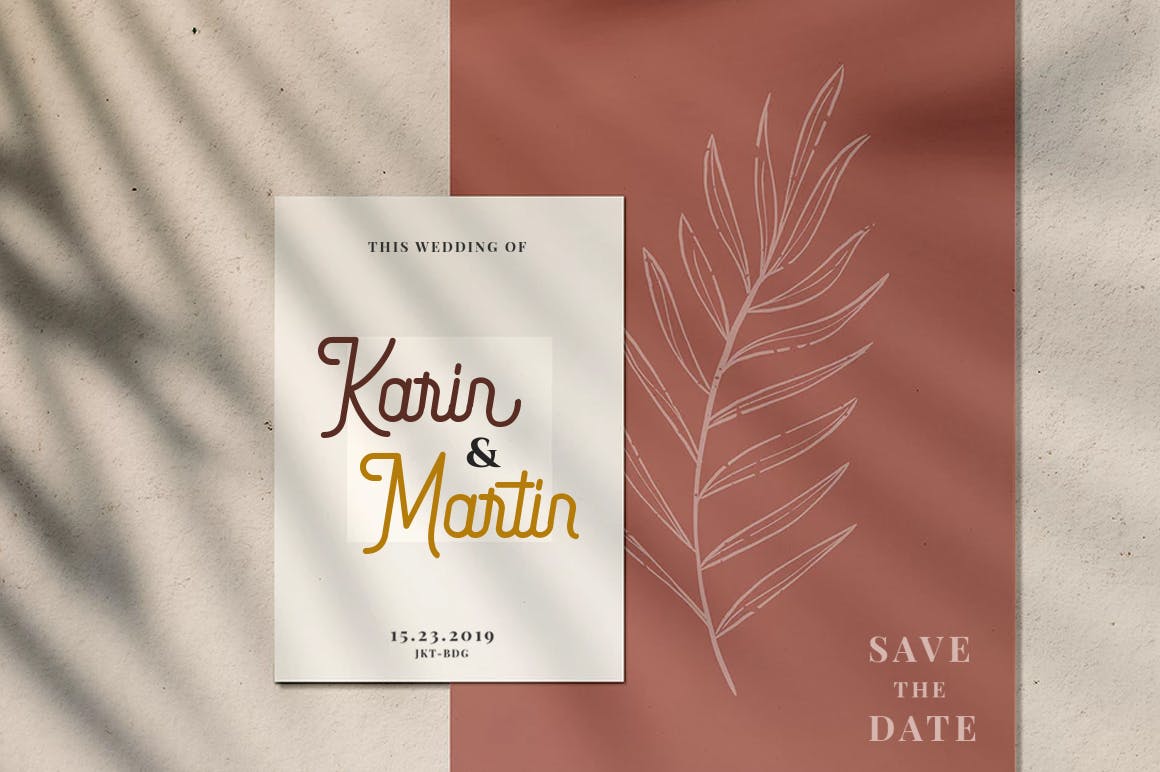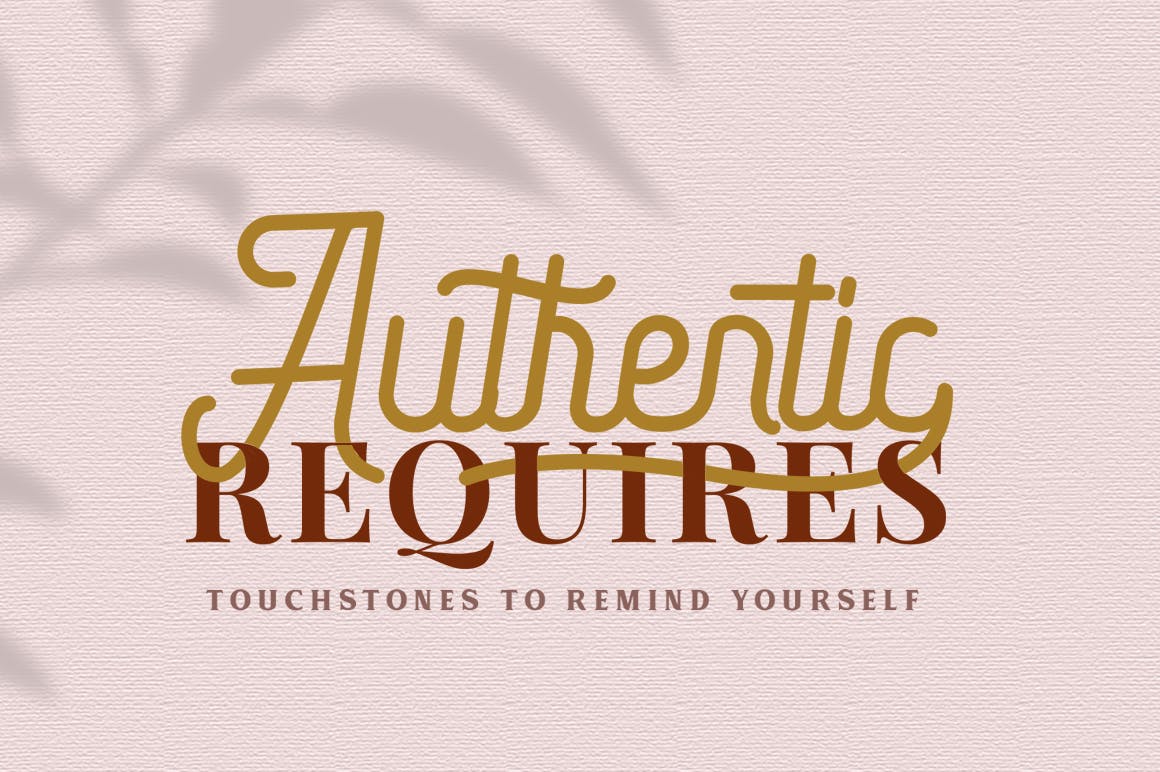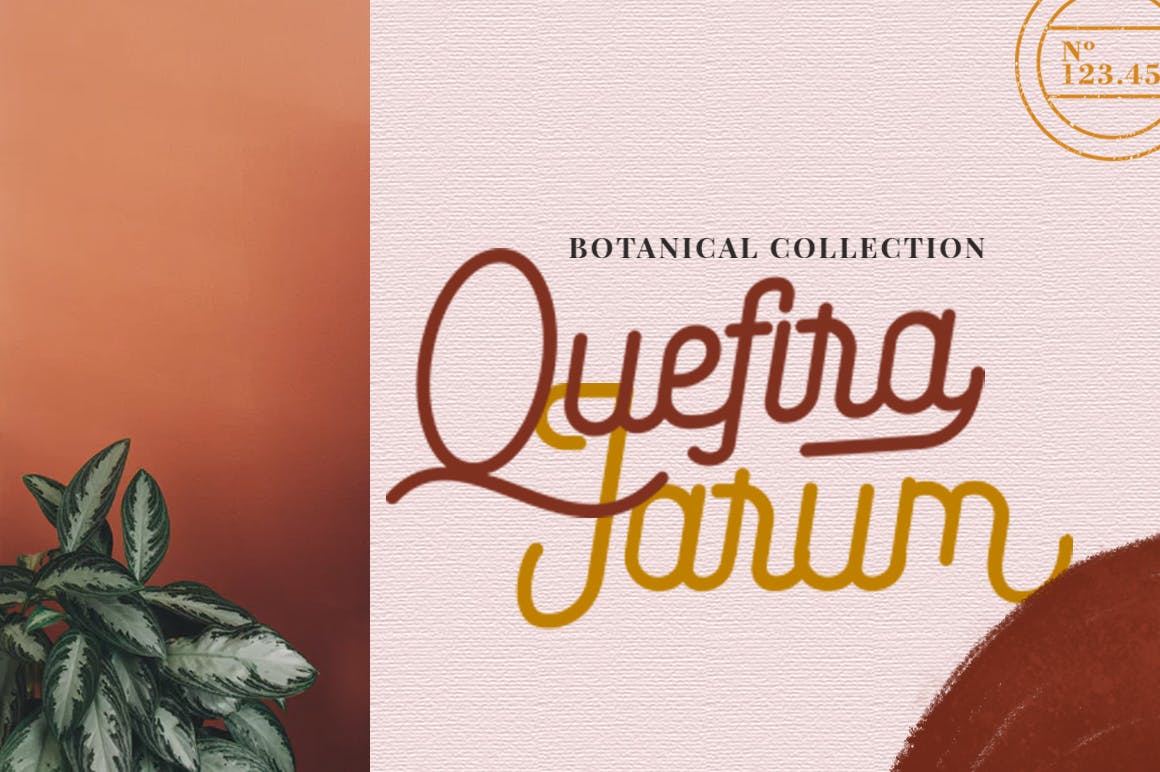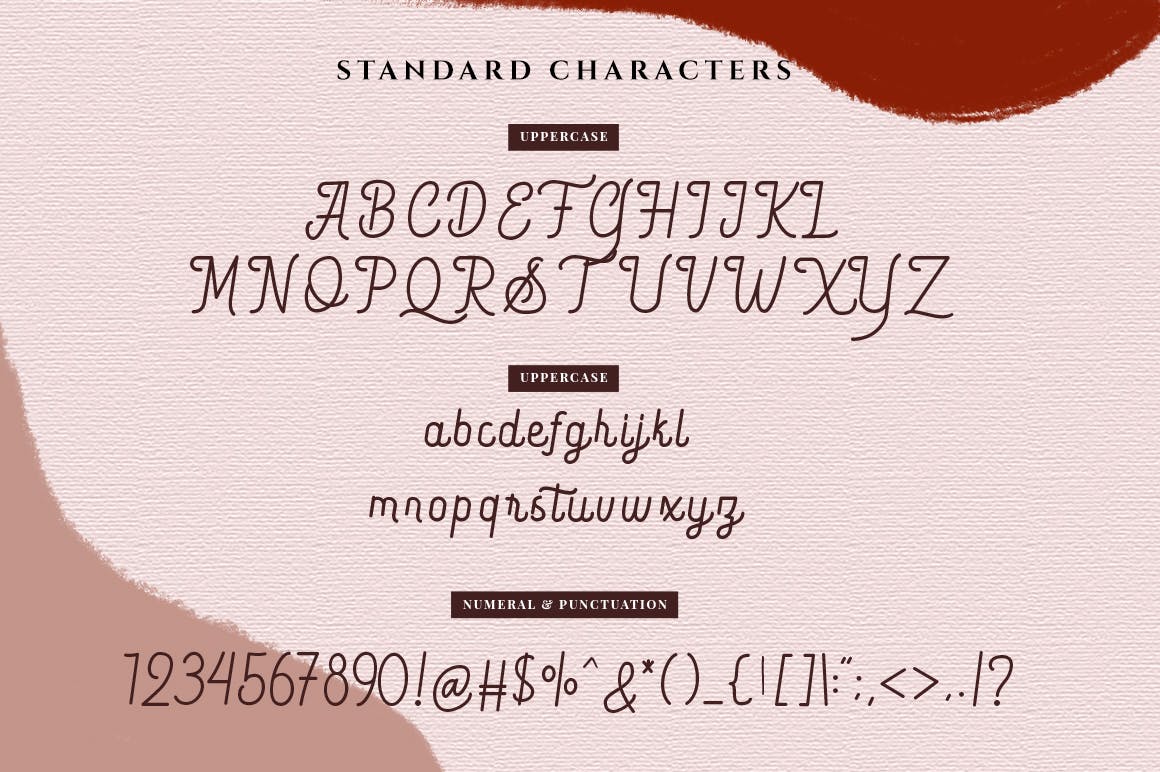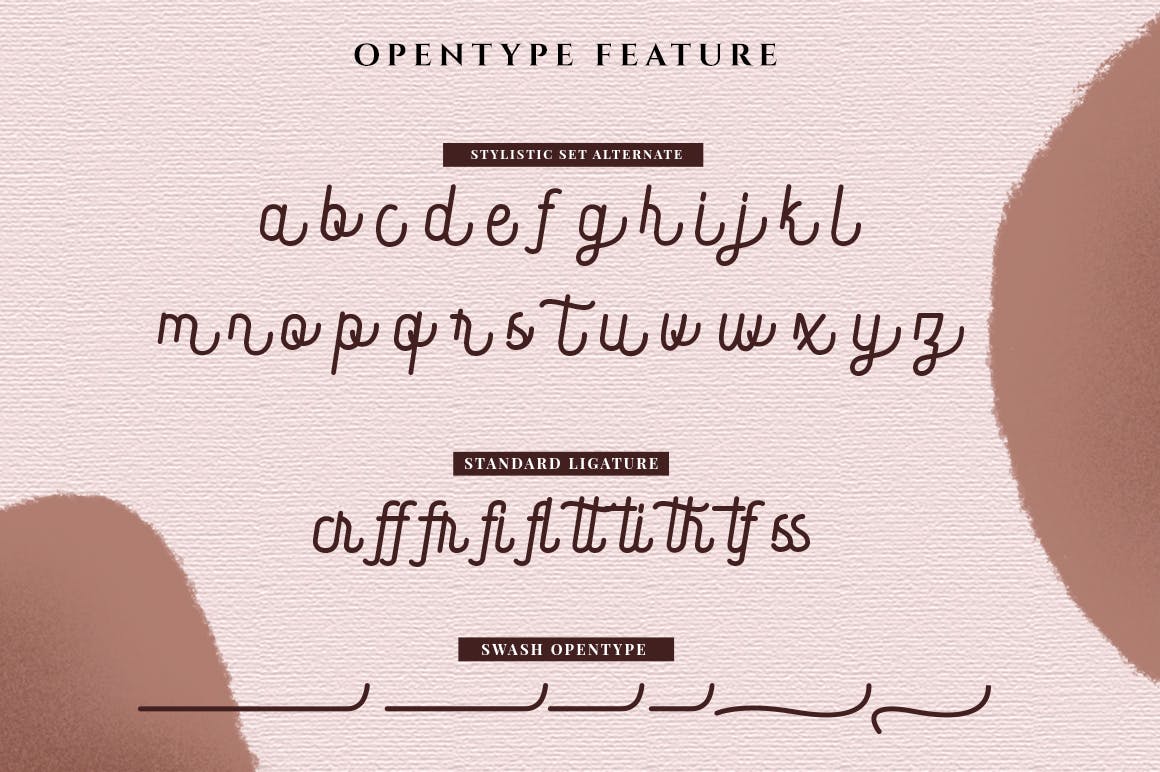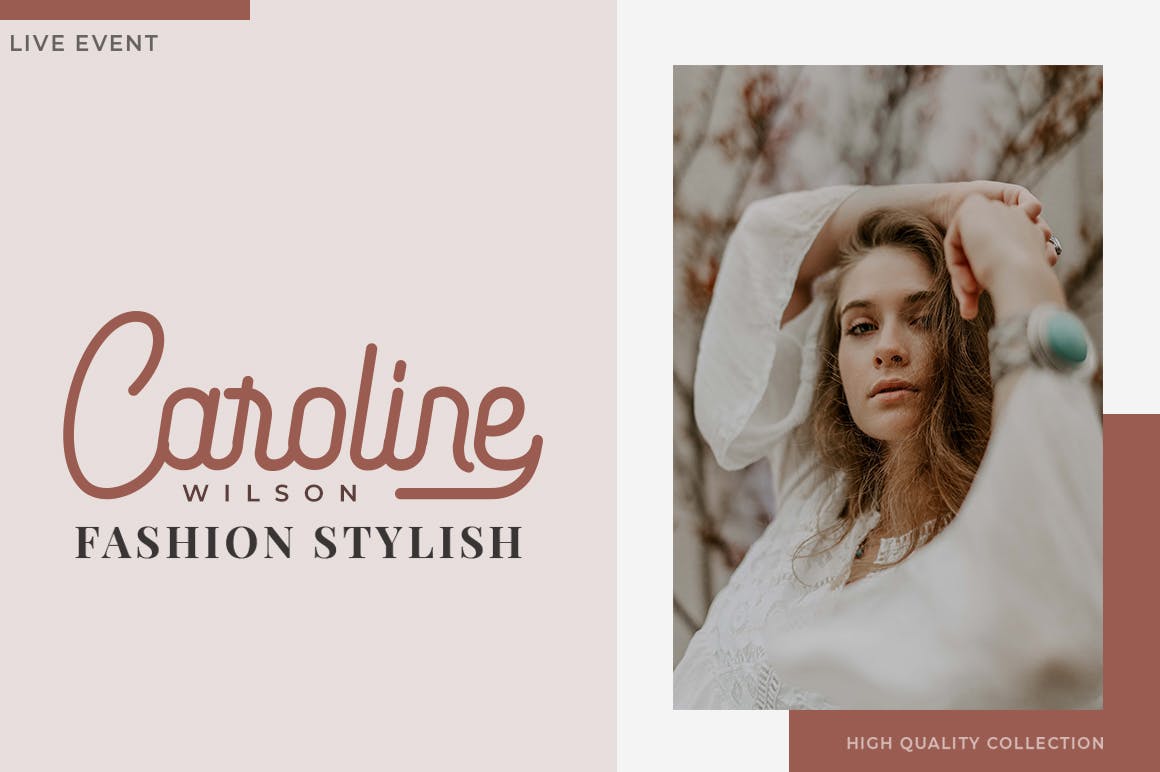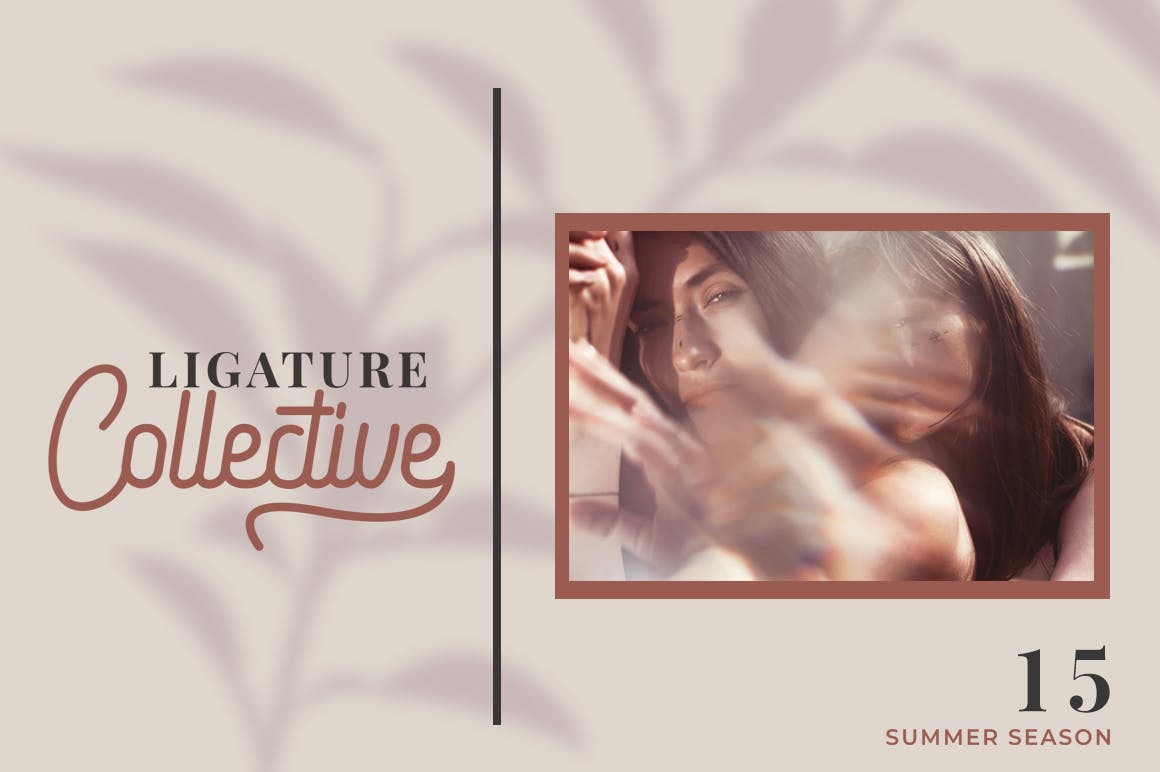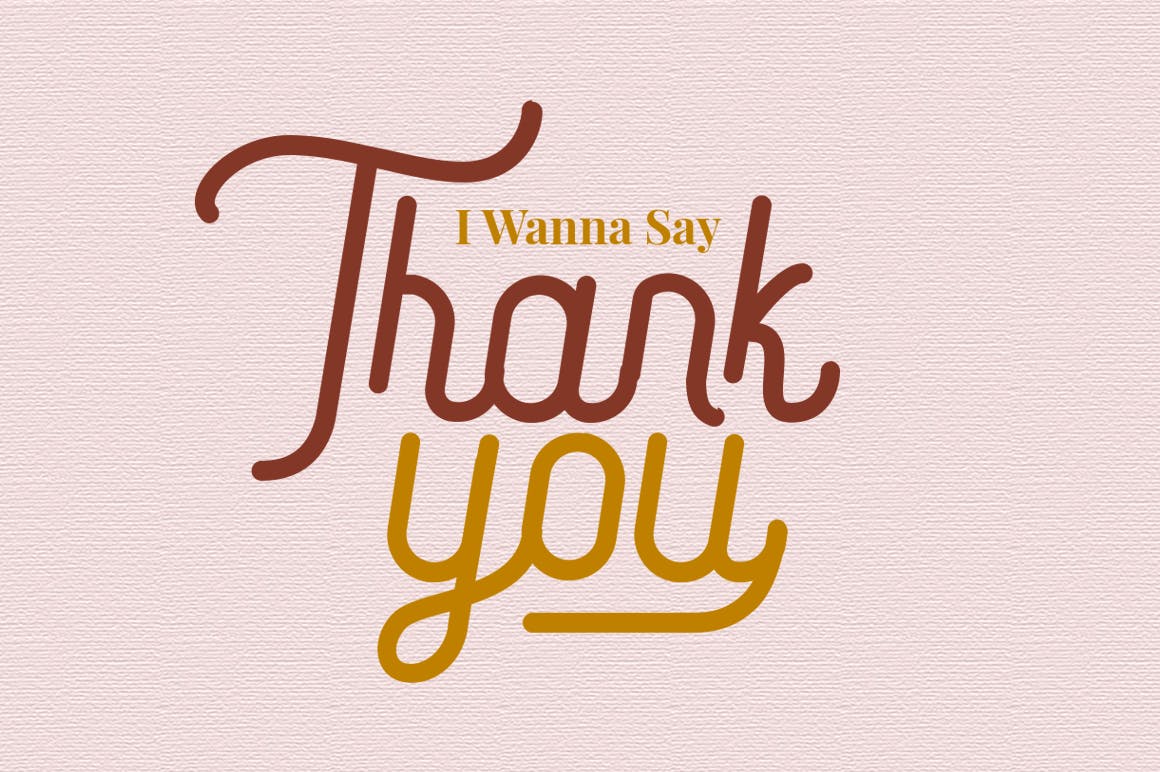
Free Quefira Aesthetic Script Font
Free Quefira Aesthetic Script Font is a beautiful script font with elegant ligatures. It looks professional for every design niche. The characters of the font are looking very tough, it will make your design has integrity. Hence, this font is very suitable for flyers, business cards, wedding invitations, banners, and much more. It is available for the OTF format file that you can install and use it on your devices. However, this free font comes with a personal license use, but if you want to get more features, you purchase the premium version.